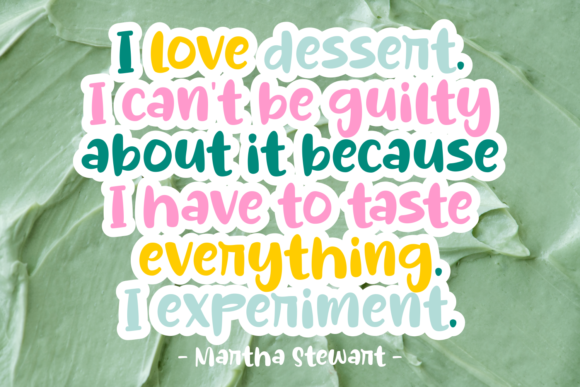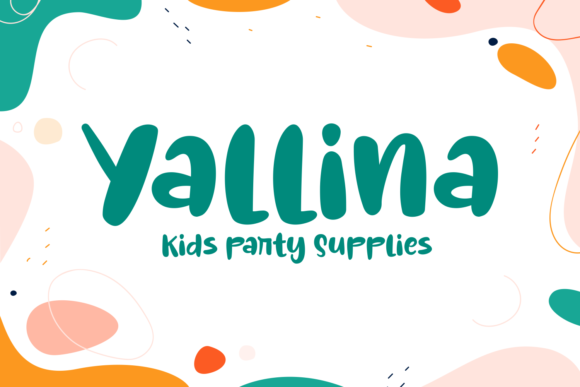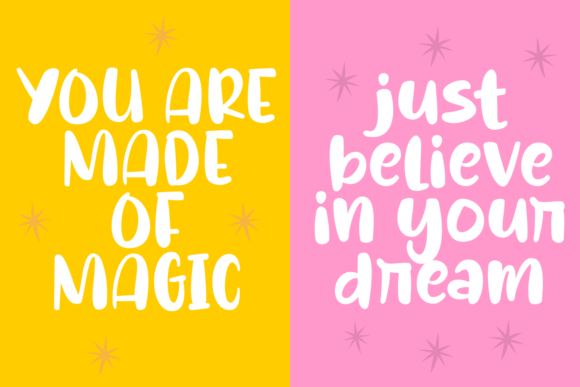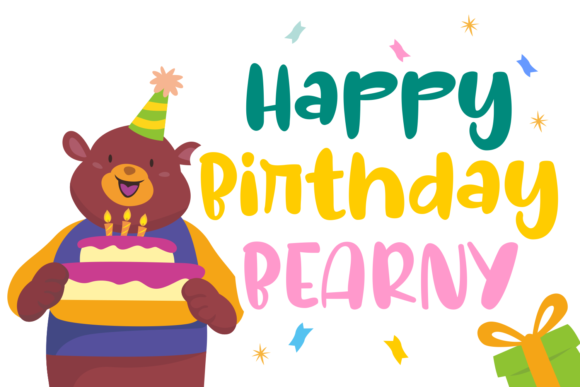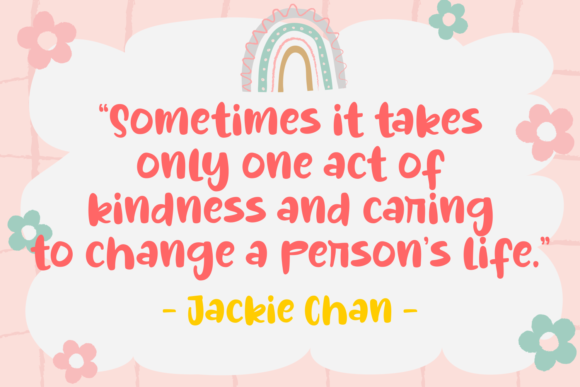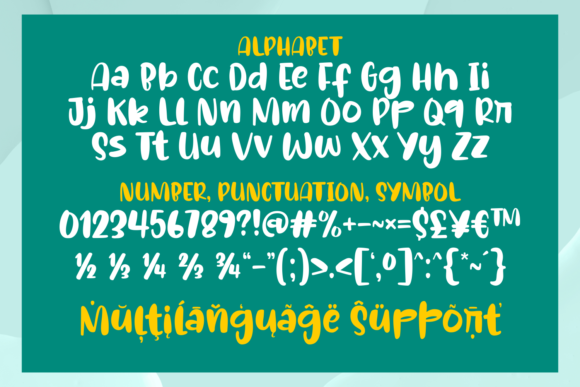
The Perfect Match for Your Creative Project
Have you ever found yourself staring at a blank canvas, searching for the perfect combination of words and style to bring your design to life? It’s a moment we’ve all experienced – the moment when everything clicks, and our creative vision becomes a reality. For designers, this moment is often the result of a well-chosen font, and we’re excited to introduce you to the Adorable Minty Font, a chic and trendy display font that’s sure to elevate your next project.
Whether you’re working on product packaging, branding, or magazine covers, the Adorable Minty Font is the perfect addition to your design arsenal. Its versatility and charm make it an ideal choice for expressing your message above the background, and its value lies in its ability to convey a sense of whimsy and sophistication. As a designer, you’ll appreciate the Adorable Minty Font’s unique character and the freedom it gives you to create stunning visuals that capture the essence of your brand.
Adorable Minty Font Key Features
- Font Family: Adorable Minty Font, a unique, hand-drawn font designed for various creative projects.
- Unique Characteristics: Features a playful, whimsical style with mint-green accents, perfect for adding a touch of elegance and sophistication to designs.
Designer Review: Adorable Minty Font
I recently had the chance to work with Adorable Minty Font, and I must say, it’s a unique addition to any design project. ✨ One of the standout features is its playful, whimsical feel, which is perfect for projects that need a touch of fun and personality.
Some of the strengths of Adorable Minty Font include:
However, as with any font, there are some limitations to consider. ⚠️ For instance:
- The font may not be suitable for formal or professional applications, due to its playful nature
- Some characters or glyphs may not be as refined or detailed as those in more complex fonts
- The font’s overall aesthetic may not appeal to designers seeking a more minimalist or modern look
Overall, I’d say Adorable Minty Font is a great choice for designers looking to add some personality to their projects. While it may not be the best fit for every design, it’s certainly worth considering for those seeking a unique and eye-catching font.
The Adorable Minty Font is perfect for creating whimsical and playful designs. Some common use cases include:
- Baby shower invitations and decorations
- Wedding stationery and invitations
- Children’s book illustrations and designs
Remember to experiment with different font sizes, colors, and styles to get the most out of the Ad